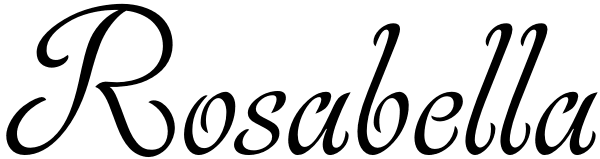
Rosabella
Rosabella is a script typeface with a plenty of decorative details -- flourishes, swashes, twists and other elements, which impart to the face a gorgeous festive look. An unusually large number of alternates and ligatures makes it possible to...